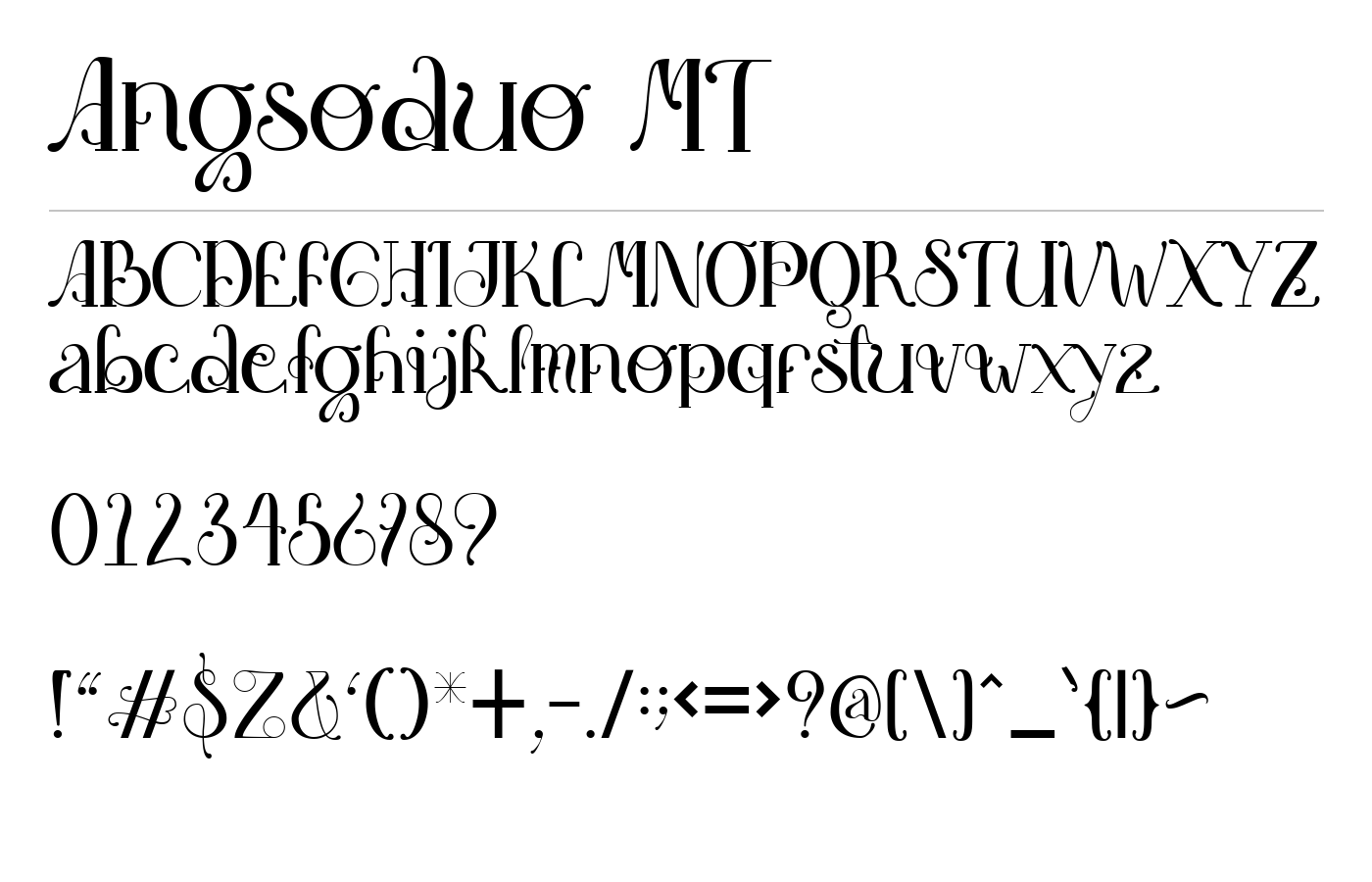
Angsoduo MT is a decorative serif font featuring elegant, high-contrast strokes with thin, bracketed serifs and playful, ornate details that give it a whimsical yet refined character. Its unique letterforms, including quirky curls and flourishes on capitals and lowercase letters, make it ideal for creative projects seeking a sophisticated, artistic touch. This font works best in branding, headlines, invitations, and packaging where a distinctive and stylish personality is desired.
Angsoduo MT Font